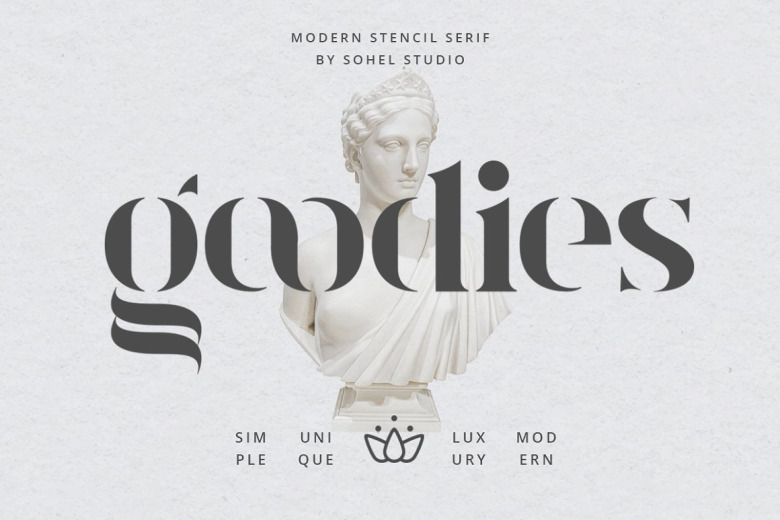
Goodies Font
Hi all…via Goodies Modern Stencil Logo Serif Font. Which has a different style & luxurious look It will be suited to another elegant & luxury logo, classy editorial design, women magazine, fashion brand, cosmetic brand, fashion promotion, modern advertising, invitation card, art quote, home decor, book/cover title, special events and more.
Goodies Serif Font